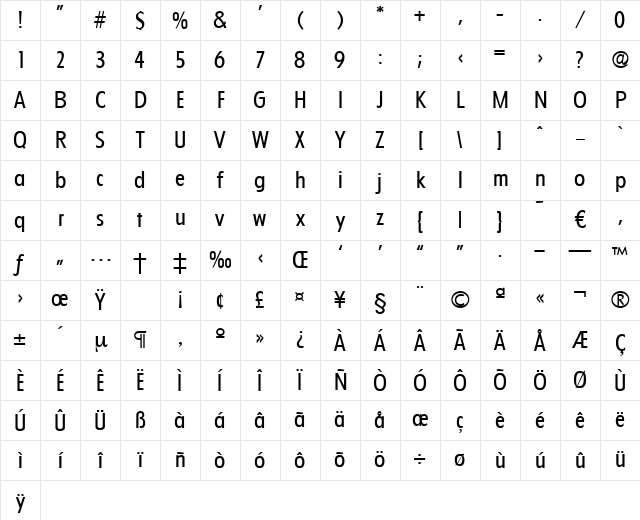
Complete Florida- Regular glyph index. Displaying only characters natively supported by Florida- Regular font.
Florida- is a composed and adaptable typeface that performs quietly and consistently across a wide range of design contexts.